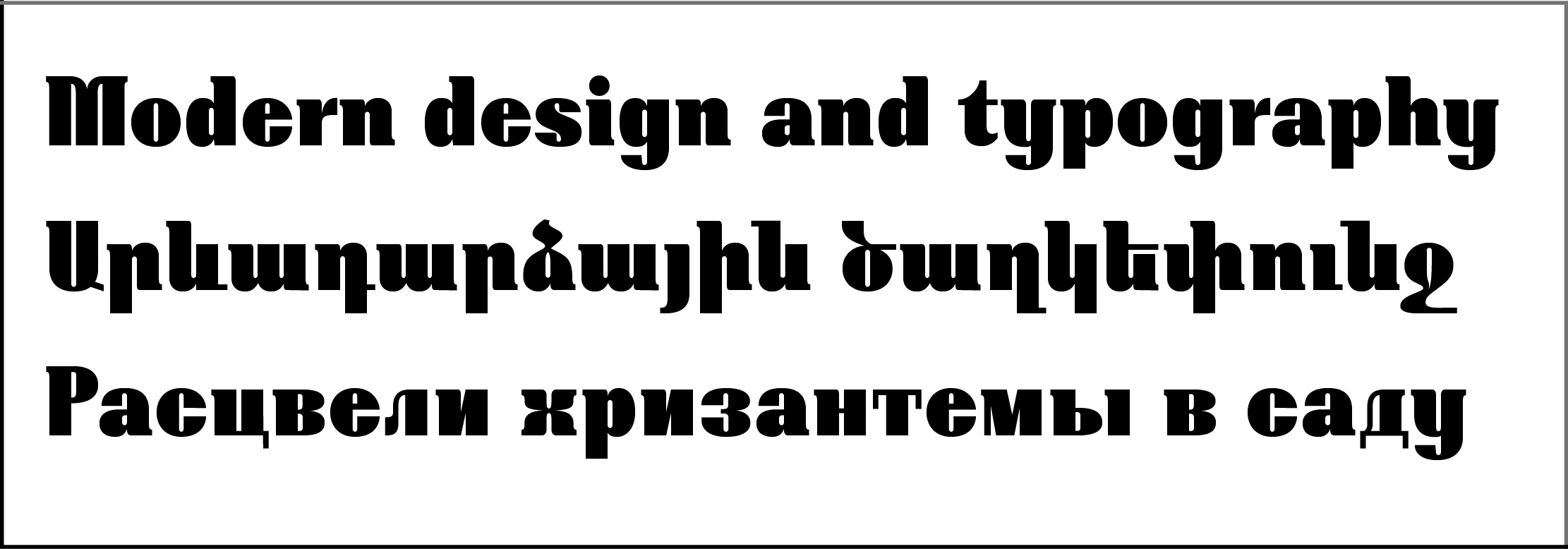
Display typefaces, Edik Ghabuzyan
GHEA Levon
GHEA Levon is an Display font for using in titles, posters and advertisements.
It included Armenian, Cyrillic and Latin Central European language systems.
The font included Basic and many Advanced Ligatures for Latin and Armenian.
GHEA Levon looked very nice in big sizes.